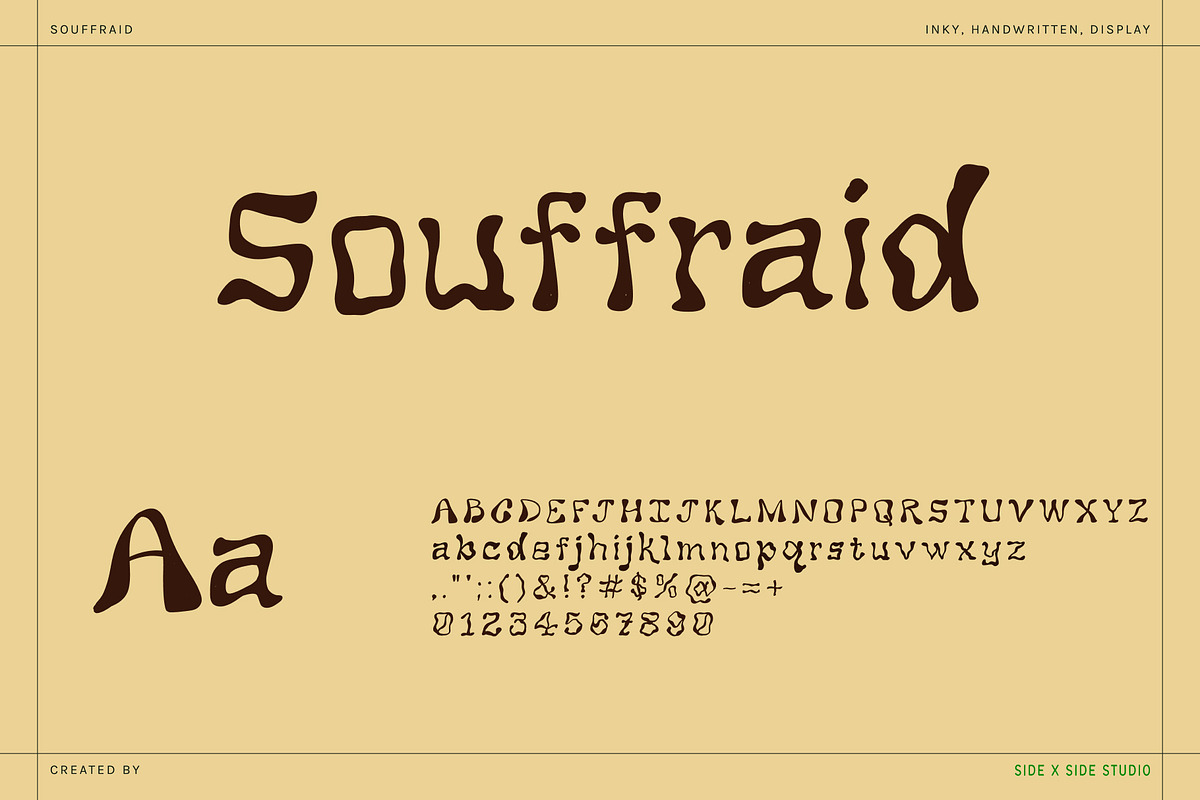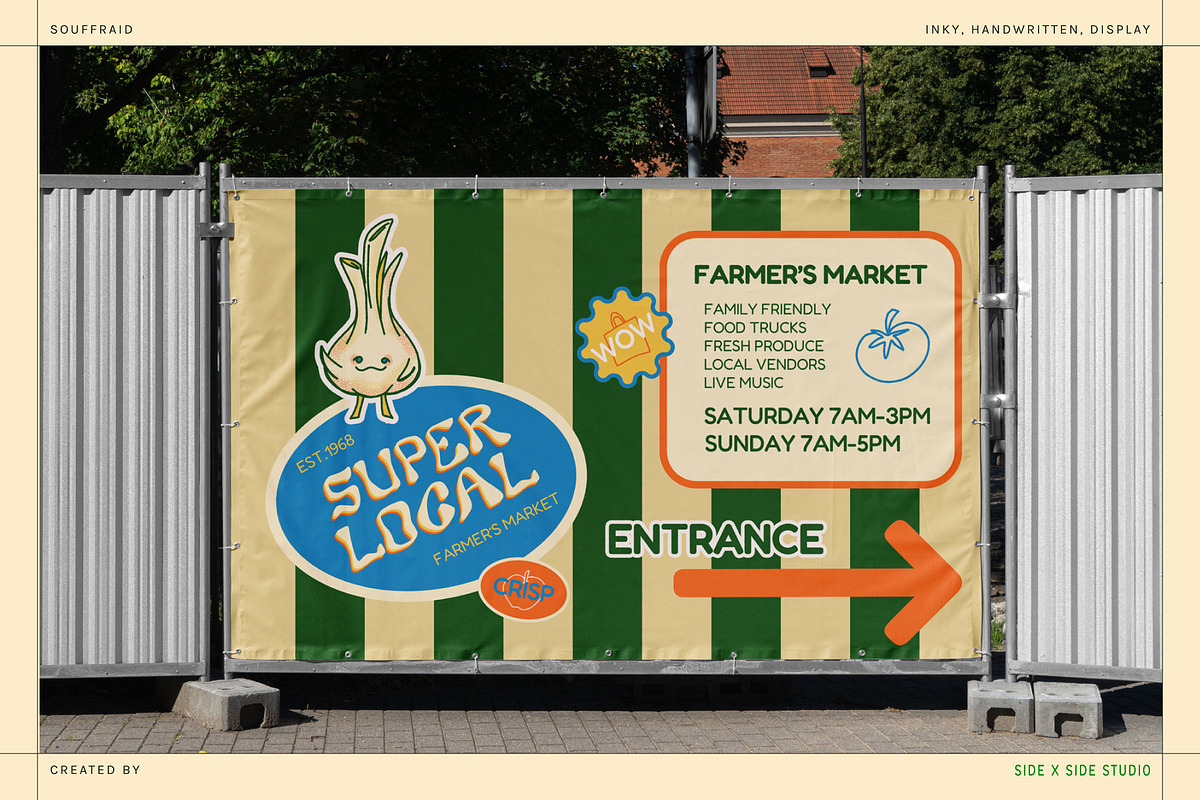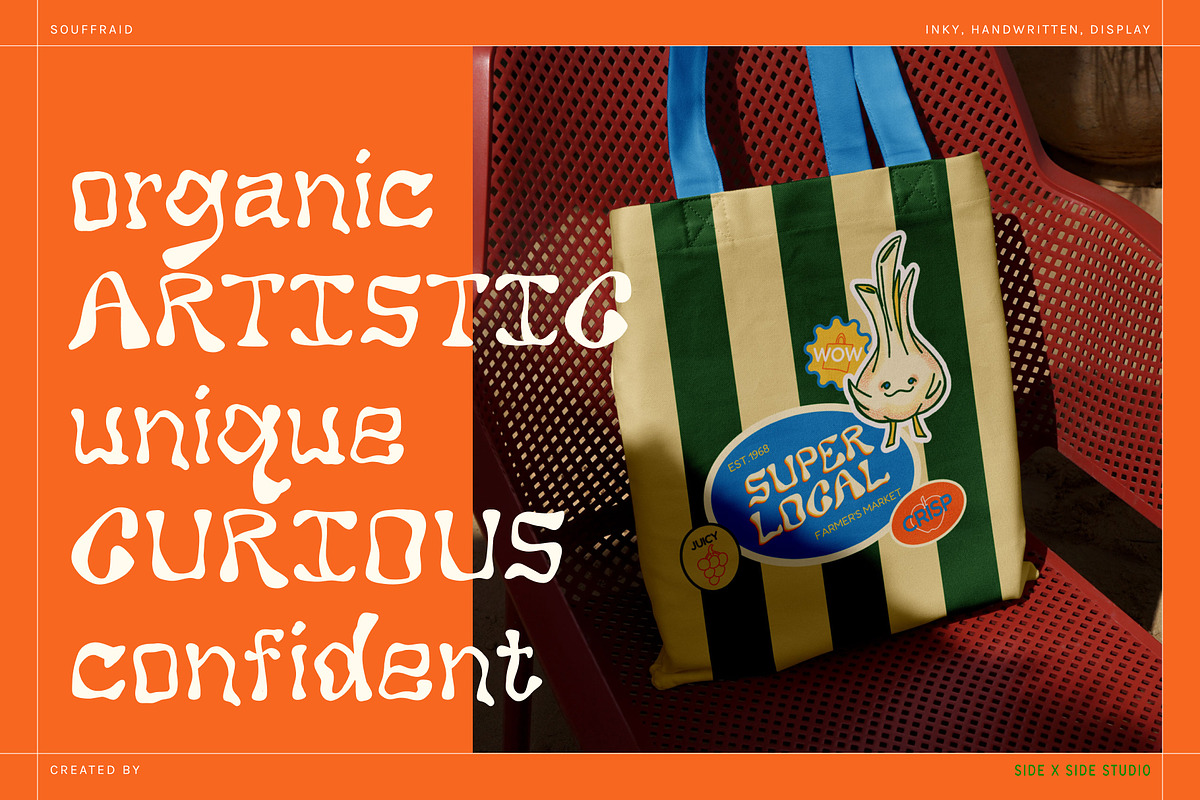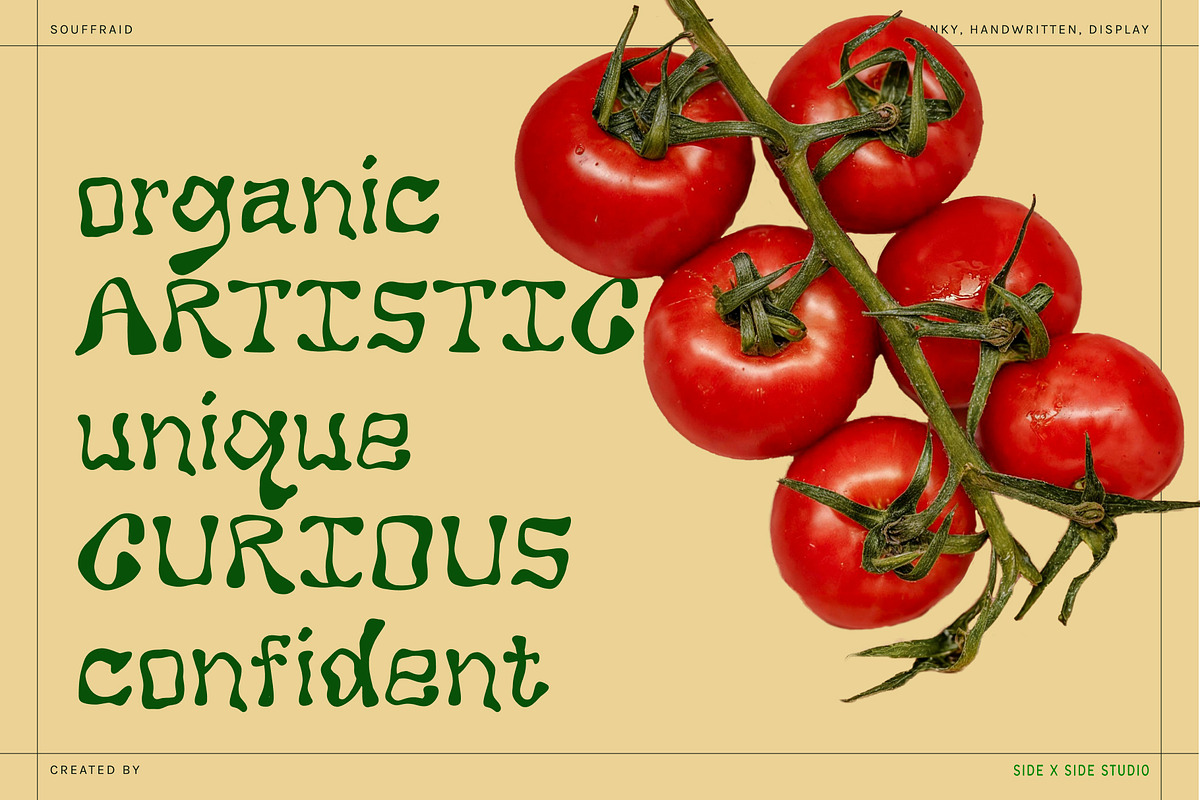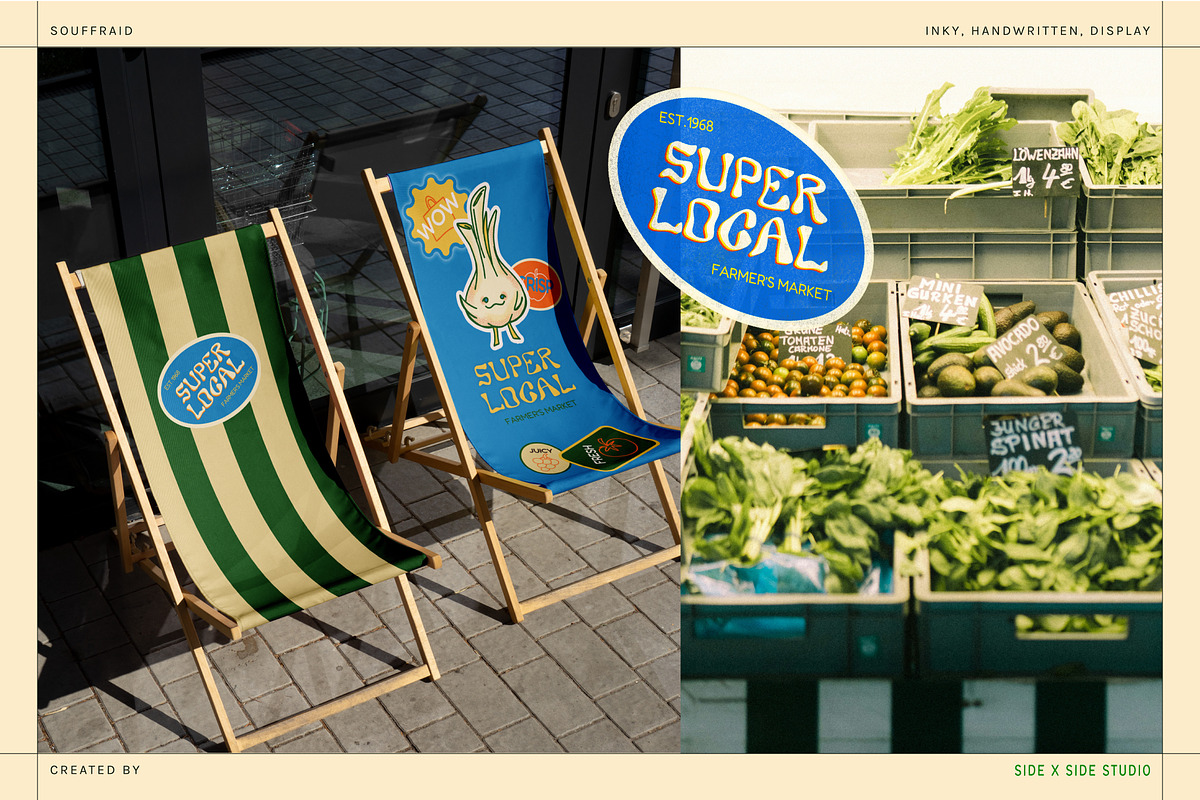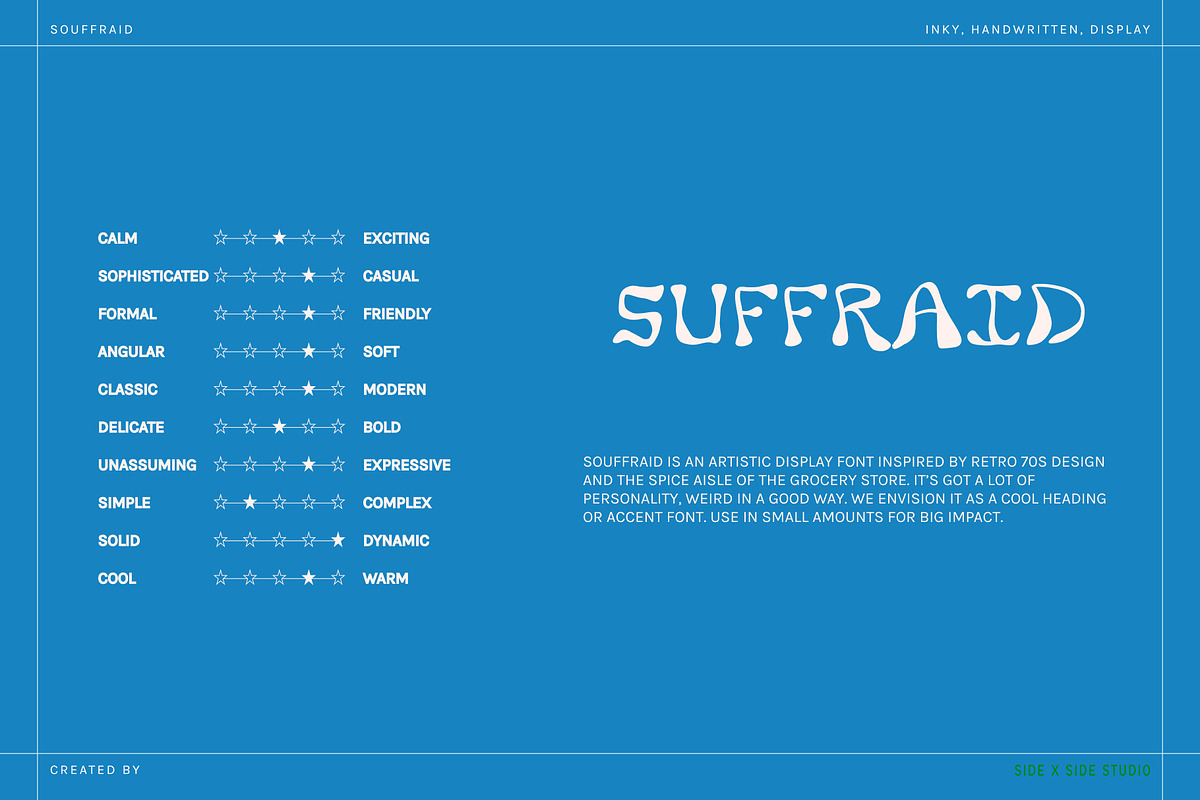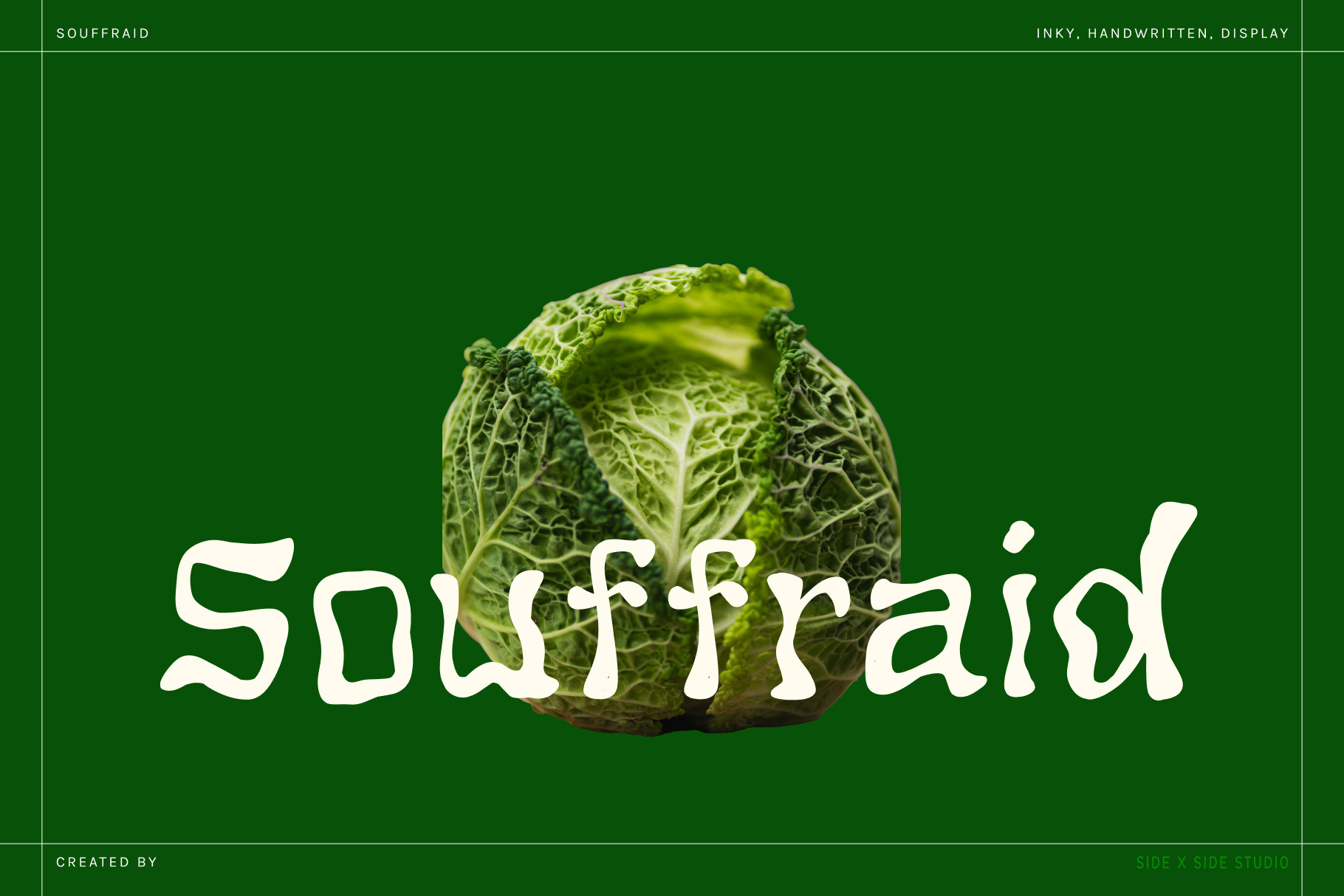
Souffraid Display Font + Icon Bundle
A retro, wavy, handwritten display font. It has the charm of a handwritten script but without the cutesy curls or roundness. If you’re looking for something with a lot of personality but in a cool-quirky way, this is for you.